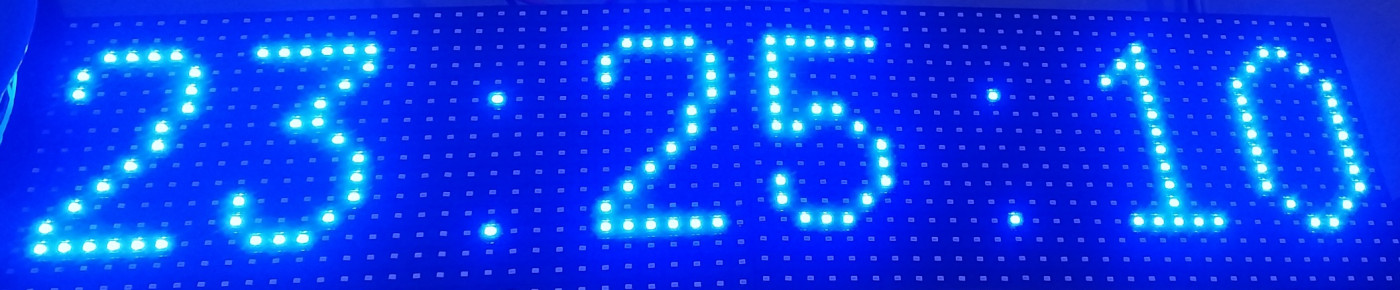
• Annisa Console is a pixelated monospaced font that perfect for code blocks or even LED scrolling texts, inspired from the Simplified Chinese font in LED scrolling texts with TF-S6UW0 controller.
- Some foreign latin glyphs has been added.
- Adjustments to the colon sign and the “@” symbol.